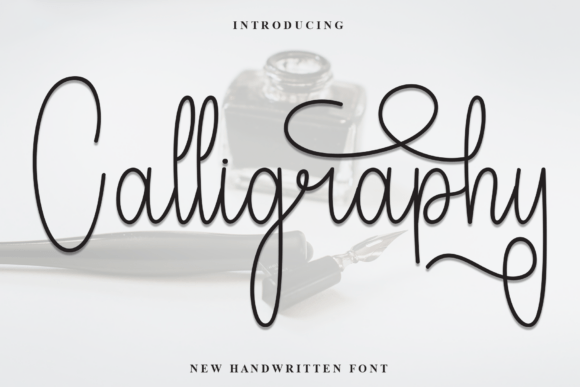
The Magic of Calligraphy Font: Elevating Designs with Elegance and Playfulness
I’ll never forget the time I was working on a wedding invitation project, and my client asked for a font that was both elegant and playful. I scoured the internet, trying out different fonts, but none seemed to fit the bill. That was until I stumbled upon the Calligraphy Font. Its fluid strokes and charming curves instantly captivated me, and I knew I had found the perfect fit. In this article, I’ll share with you why I’m obsessed with this font, its features, and how to make the most of it in your designs.
- ✨ Elegant and Playful: Calligraphy Font strikes the perfect balance between modern elegance and playfulness, making it suitable for a wide range of design projects.
- ✅ Versatile: This font is ideal for logos, packaging, invitations, and any other project that requires a personal touch.
- 💫 Fluid Strokes: The font’s fluid strokes and charming curves bring a sense of warmth and sophistication to any design.
While Calligraphy Font is an amazing addition to any design project, there are a few things to keep in mind:
- 🤔 Legibility at Small Sizes: Like many script fonts, Calligraphy Font can be a bit tricky to read at small sizes. Make sure to test it out at different sizes to ensure it’s legible for your specific project.
- ⚠️ Overuse: While the font is stunning, overusing it can make your design look cluttered. Balance it with other fonts or design elements to create a visually appealing composition.
- Experiment with the font’s OpenType features, such as glyphs and stylistic alternates, to add more personality to your design.
Calligraphy Font was inspired by the art of traditional calligraphy. Its creator, a talented typographer, wanted to capture the essence of handwritten script fonts while incorporating modern elements. The result is a font that’s both elegant and playful, perfect for designers who want to add a personal touch to their projects.
Q: What is Calligraphy Font?
A: Calligraphy Font is a stylish handwritten script font that blends modern elegance with a playful touch.
Q: Can I use Calligraphy Font for my logo design?
A: Absolutely! Calligraphy Font is ideal for logo design, as its elegant and playful strokes can help create a unique and memorable brand identity.